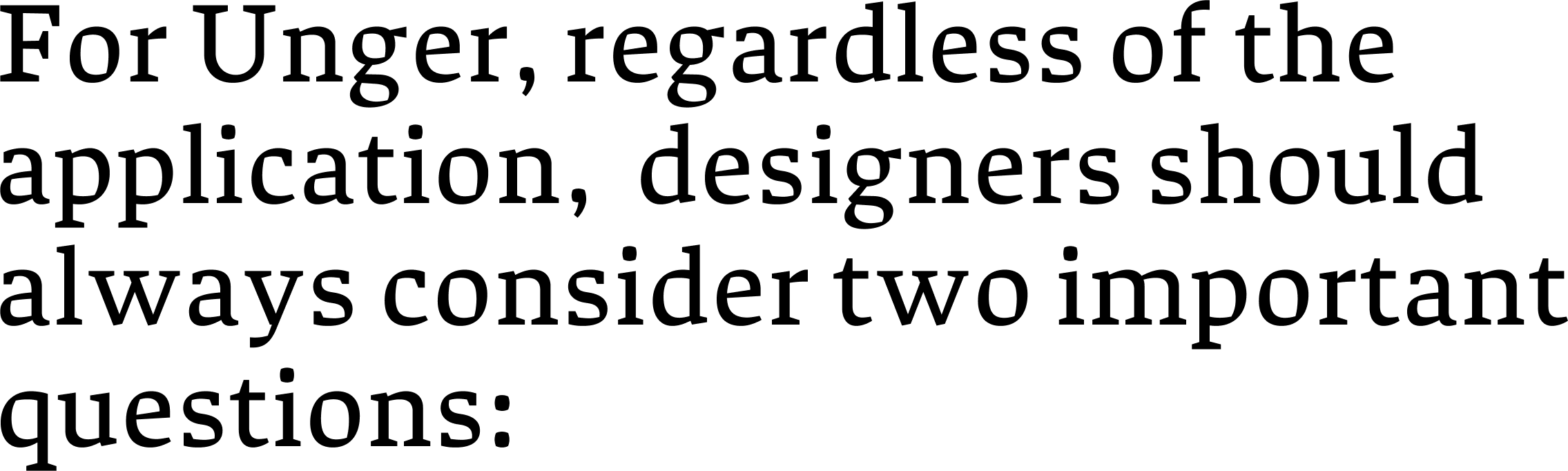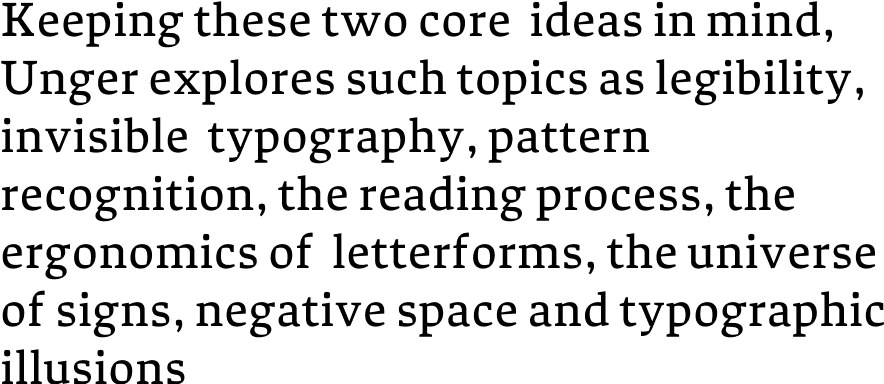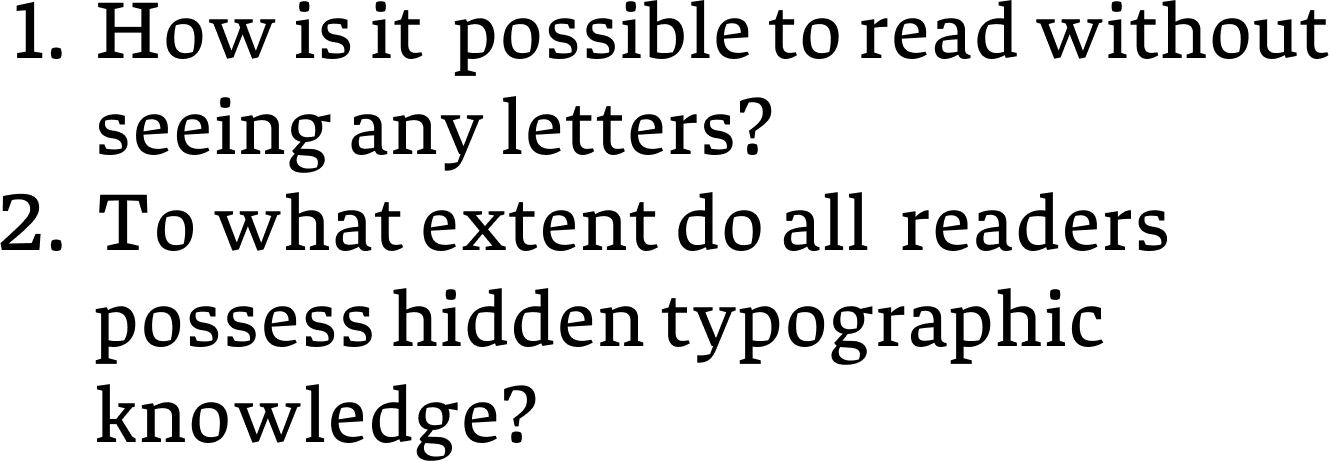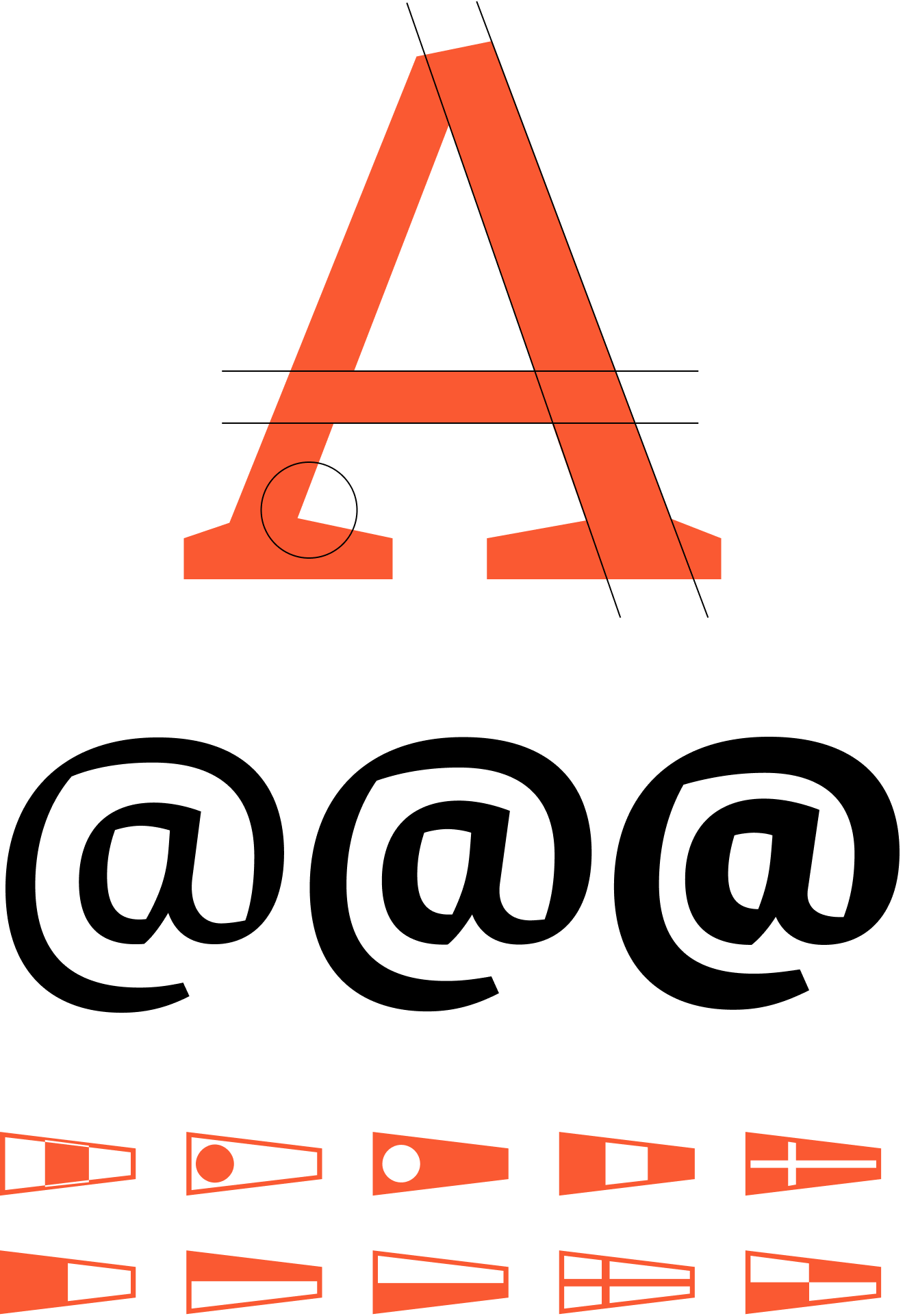
Atlantic
Atlantic was my project for the second and third terms at the Type at Cooper  program. Between the first and second terms I read the book "While  You're Reading" by Gerard Unger. In that book, Unger espouses his ideas  on readability, what happens in our brains when we read, and his  attempts.
Atlantic
Low contrast
Nib-style
Angular construct
Nautical dingbats